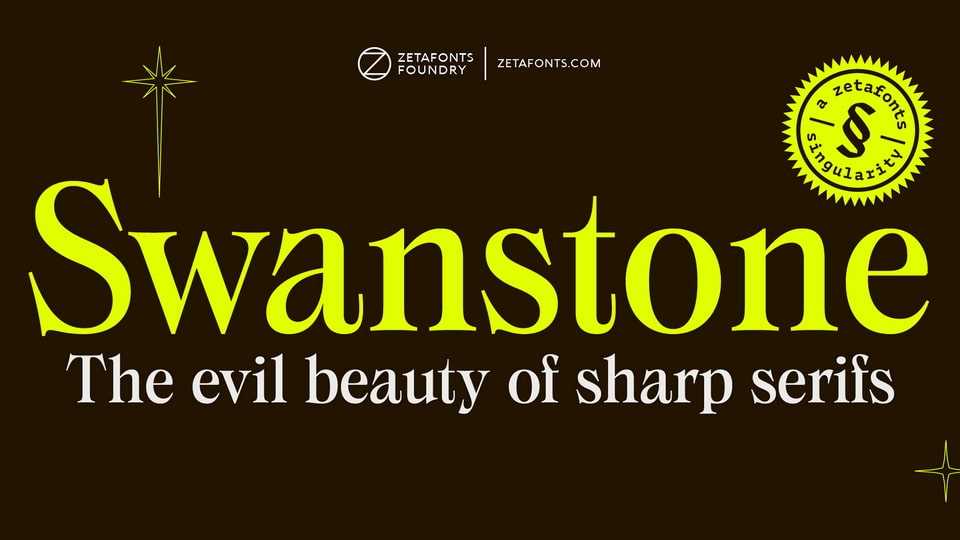
Download Swanstone font, a serif typeface designed while investigating XIX Century Old Style typefaces. Swanstone font featuring contemporary retelling of these exuberant and sexily unsettling letterforms.